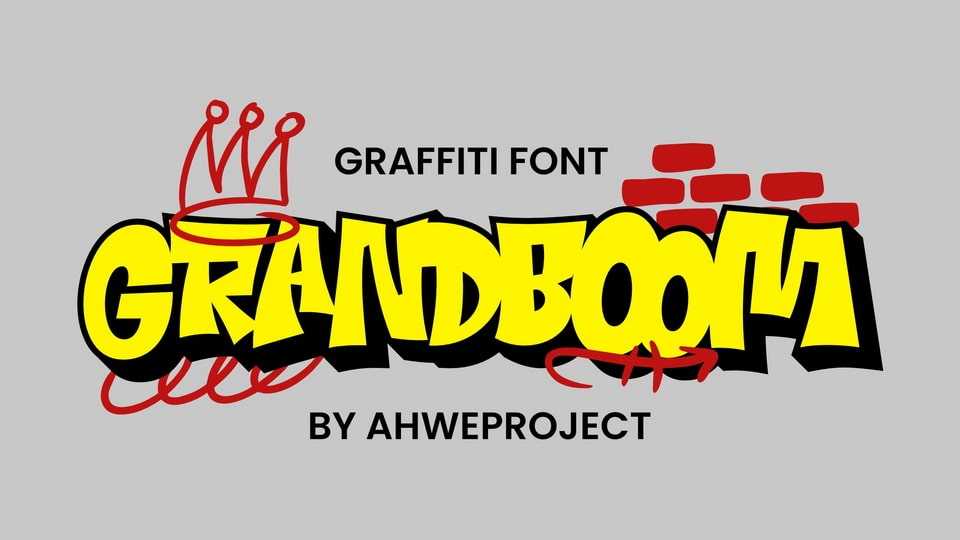
Download Grandboom font, a bold and expressive graffiti-style typeface that captures the raw energy of street art. Its thick, dynamic strokes and exaggerated curves give it a rebellious and urban aesthetic